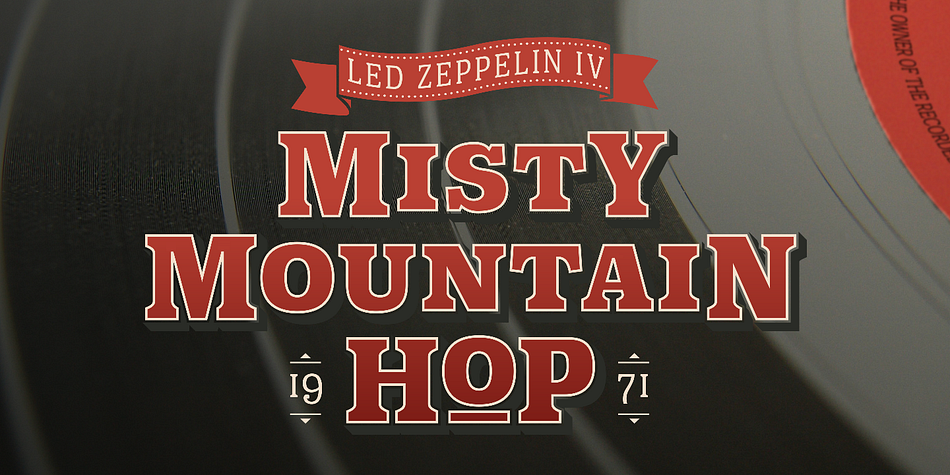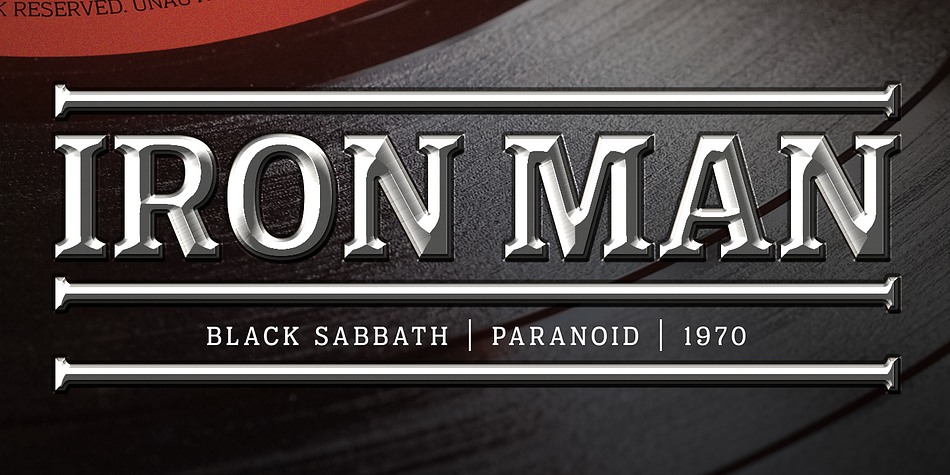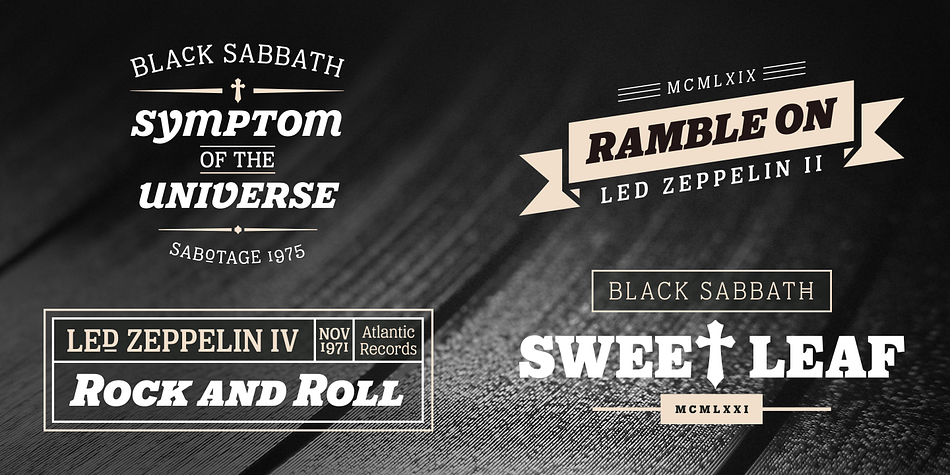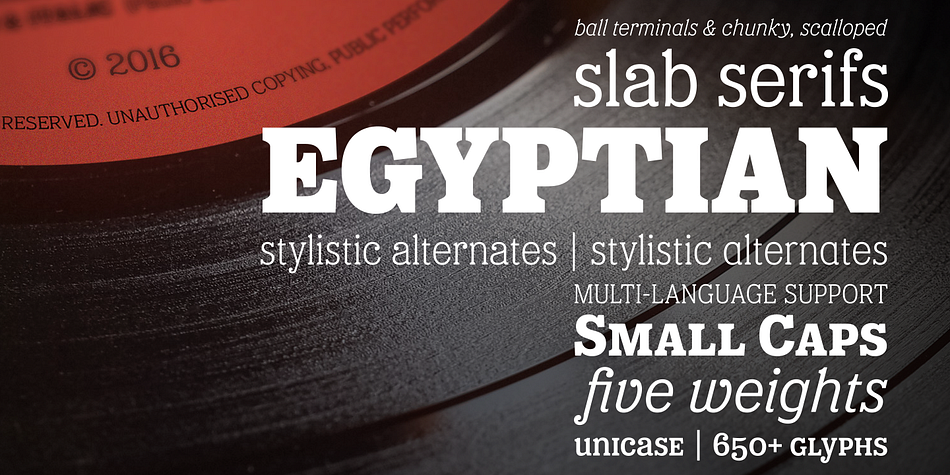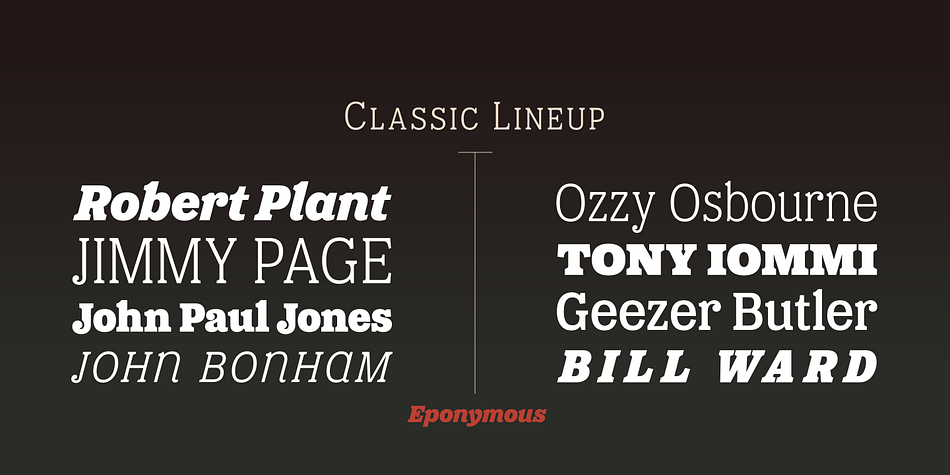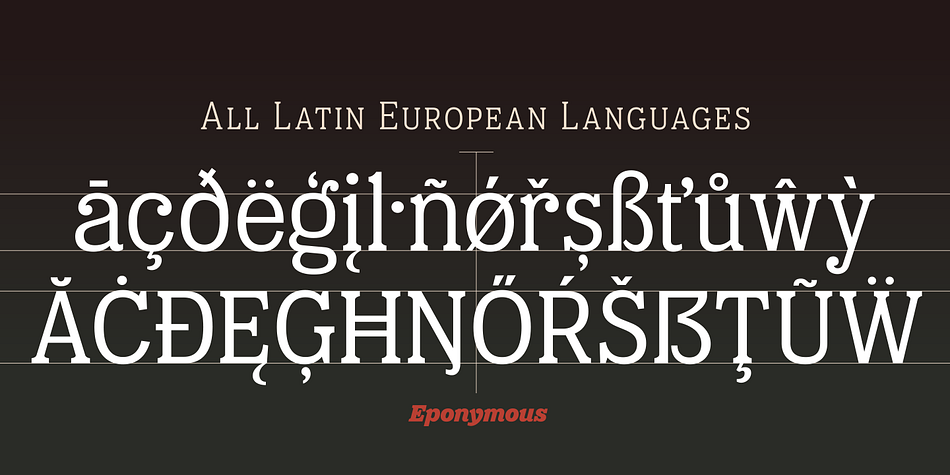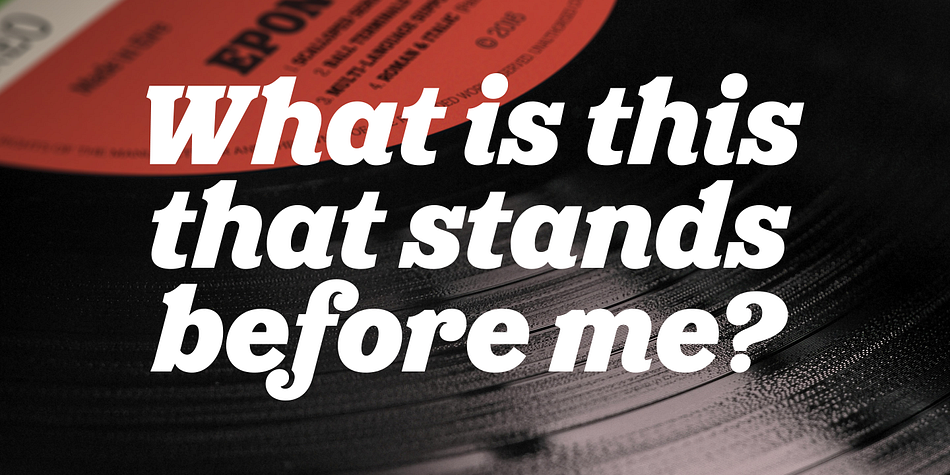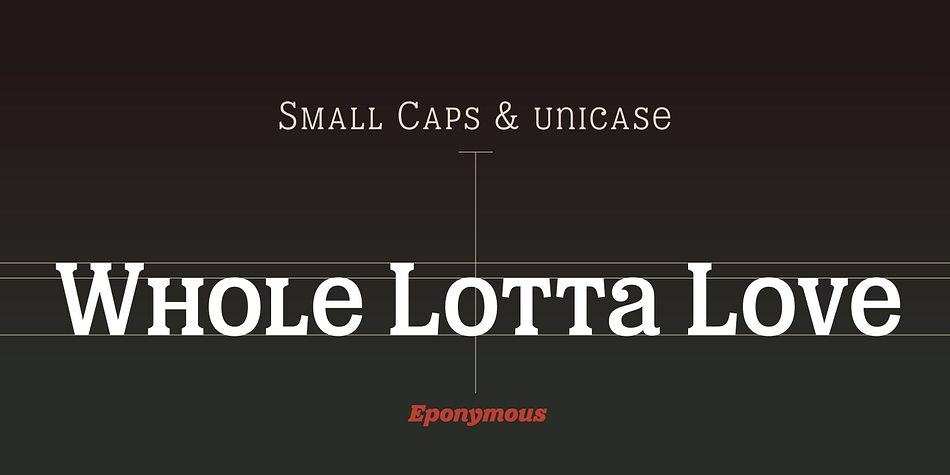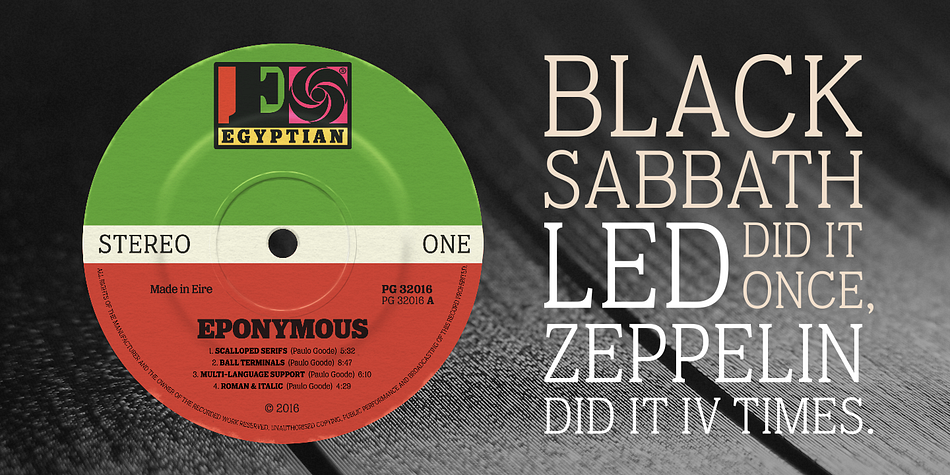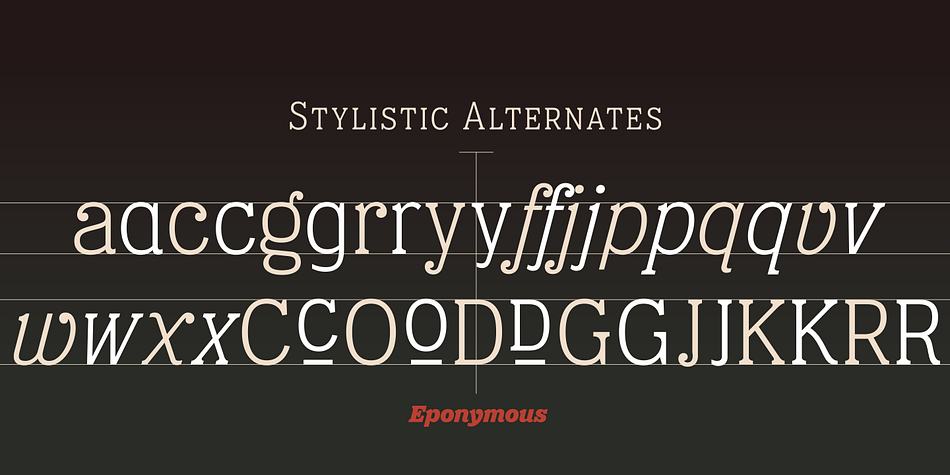
Designed by Paulo Goode, Eponymous is a slab serif font family. This typeface has ten styles and was published by Paulo Goode.
Eponymous is my fifth font release – it is an Egyptian-style typeface with chunky, scalloped serifs. It is available in five weights in both roman and italic.
I have always loved slab serif type and have often offered logo design options to my clients created with New Century Schoolbook or Clarendon, but more often than not, those designs were never chosen. Undeterred, I am trusting my own judgement and have created Eponymous to fulfil a yearning for a versatile, stylish and contemporary slab face. A key design characteristic is the implementation of scalloped serifs which, to me, imbues the font with a distinctive personality.
Make use of the Open Type features that are part of Eponymous. For a start, you can implement some stylistic alternates, so, if the main characters don’t quite suit your concept, try activating Stylistic Set 1. There’s also a full set of small caps included. You can mix and match these characters with regular lowercase to create some interesting unicase typography. Of course, all characters have complementing diacritics, enabling multi-language support.
Key features:
• Eponymous is is an Egyptian-style typeface with chunky, scalloped serifs
• 5 weights in roman and italic:
• Light | Regular | Medium | Bold | Black
• Full set of small caps with diacritics and figures
• 30+ alternate characters
• Full European character set
• 600 glyphs per font